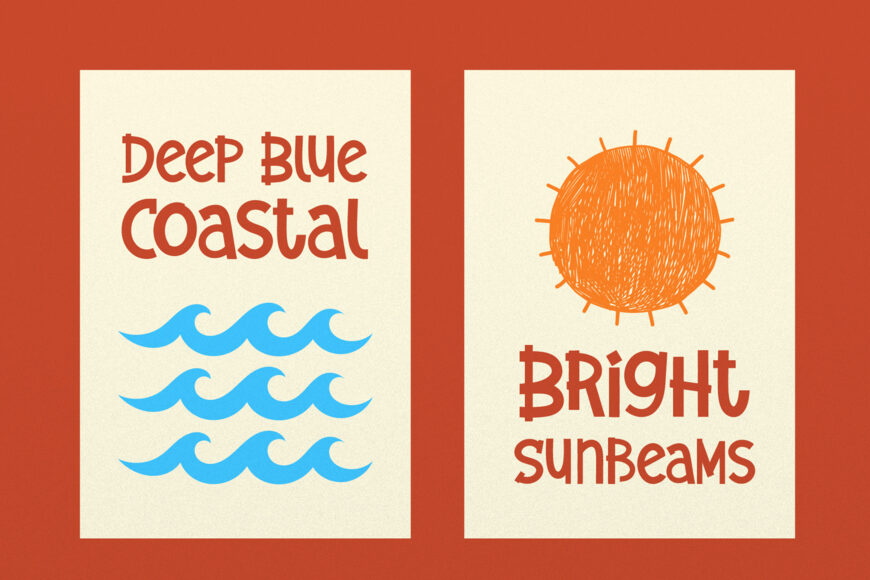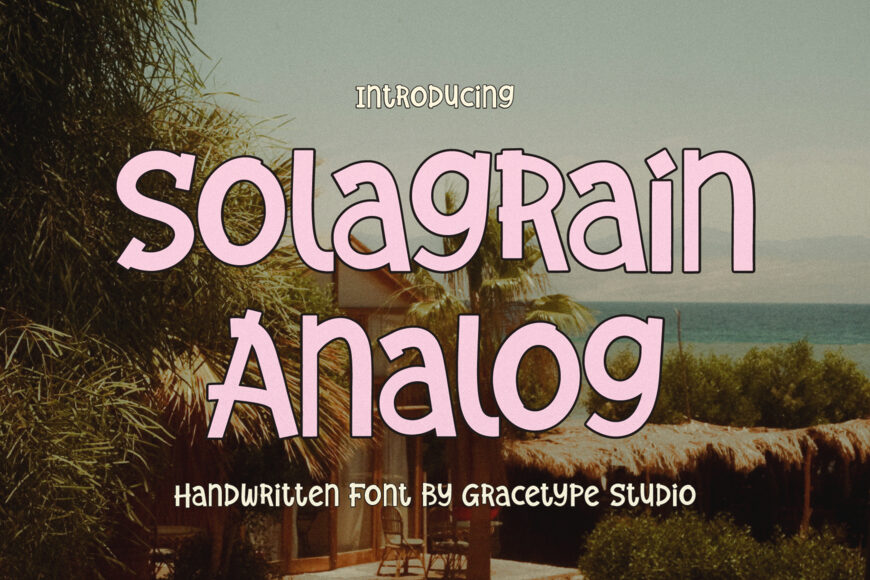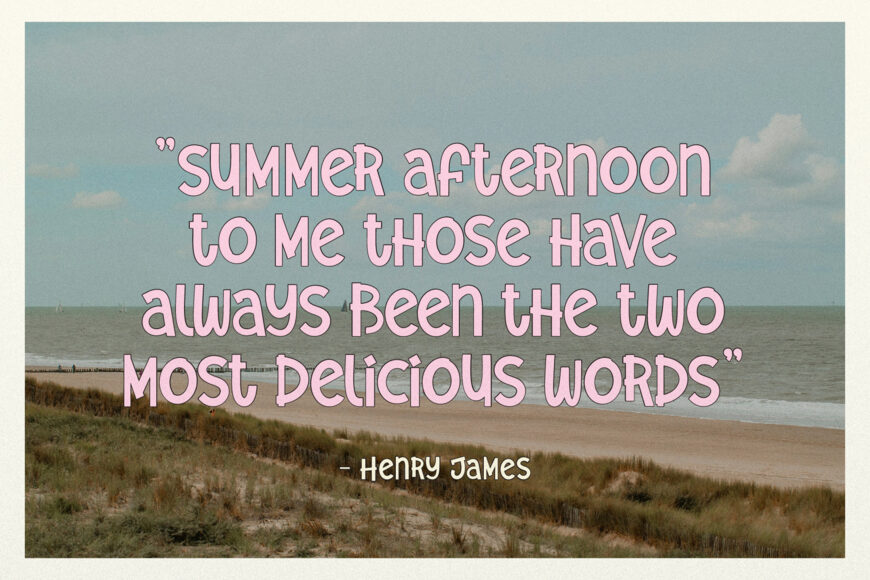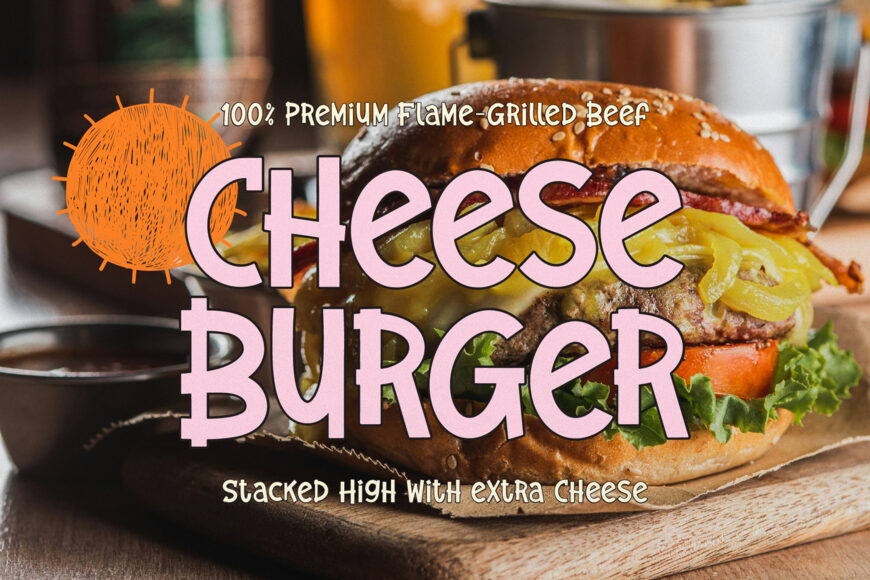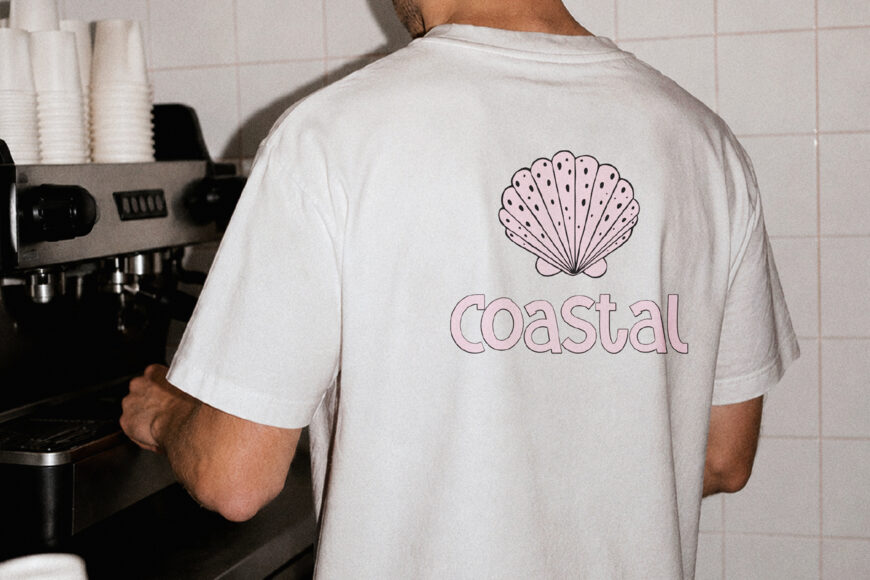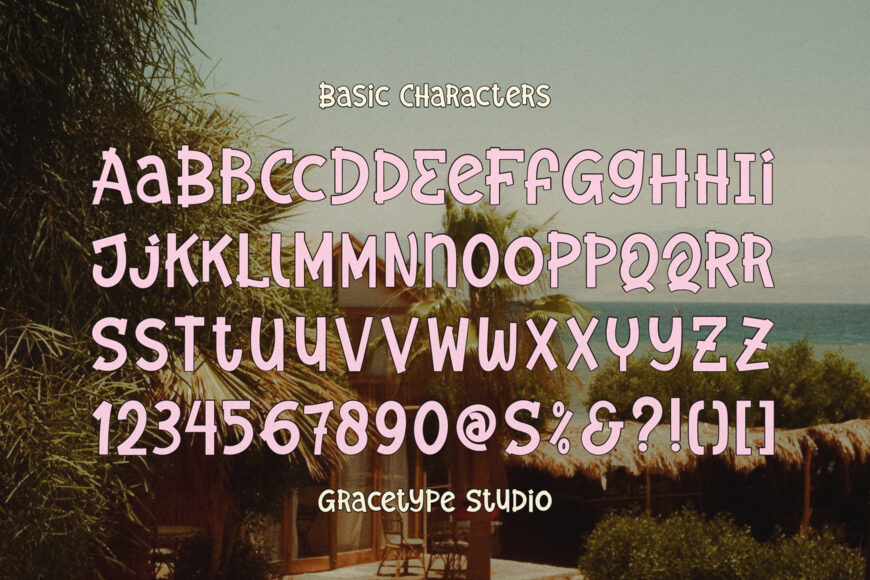
Solagrain Analog Font
Capture the warm nostalgic feel of film photography, sun-drenched summers, and retro aesthetic charm with SOLAGRAIN ANALOG! This lovely handwritten font features quirky letterforms, playful line accents, and a casual sans-serif structure that brings effortless vintage personality to your typography.
Ideal for retro travel posters, summer branding, cozy quote art, photo album captions, sticker designs, packaging, and custom Cricut or Silhouette vinyl craft projects, SOLAGRAIN ANALOG turns every title into a warm analog memory!